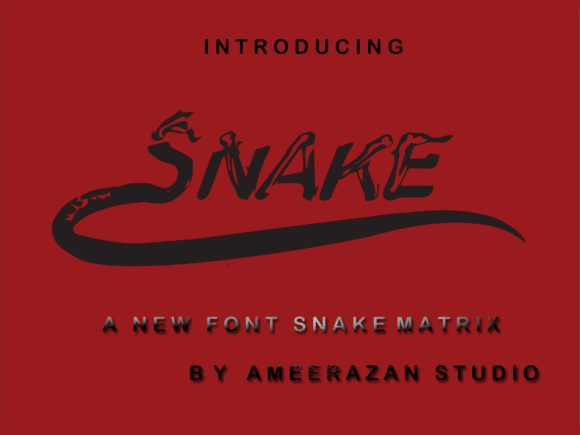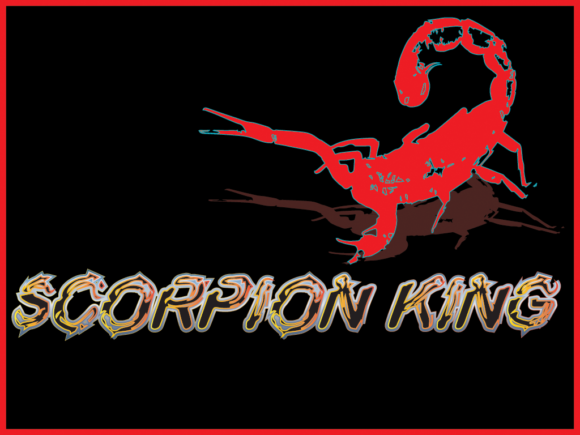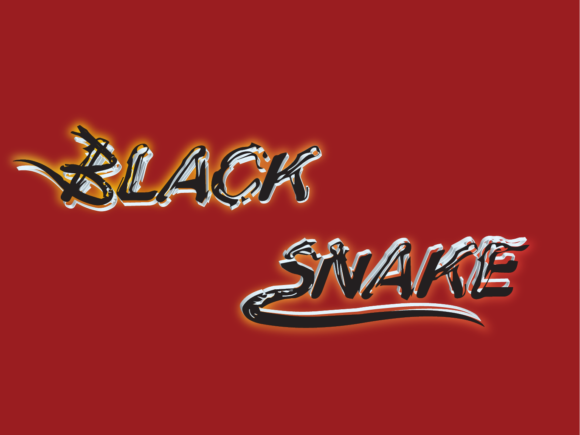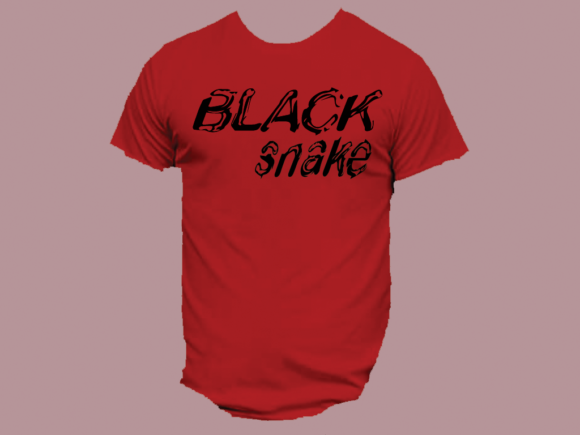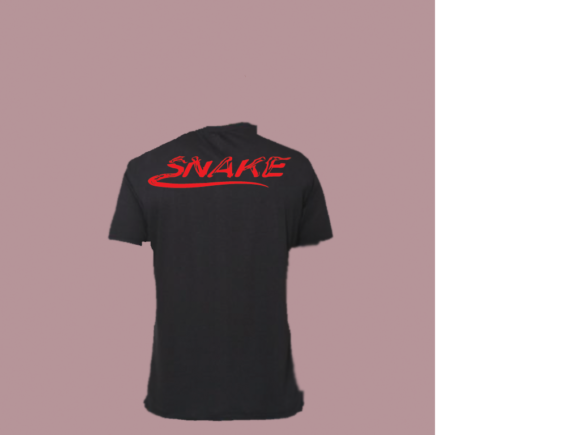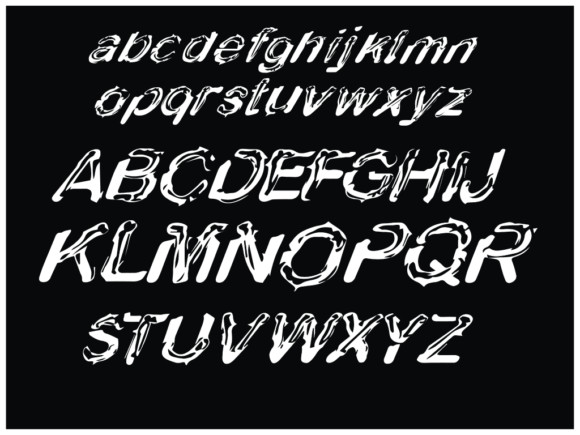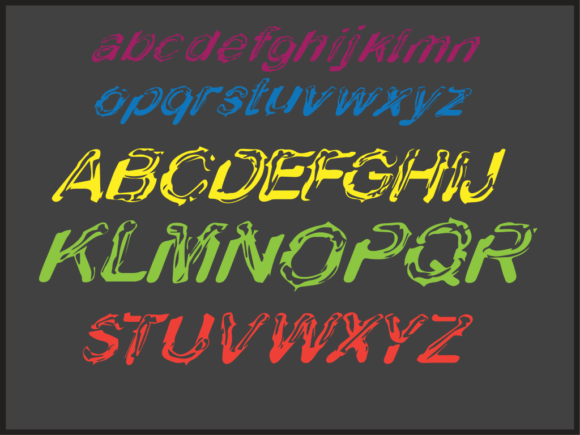
Metrix Snake Font
About Metrix Snake Font
Metrix Snake is a fun and cool handwritten font with a unique charm. Use it to turn any design project into a true standout!